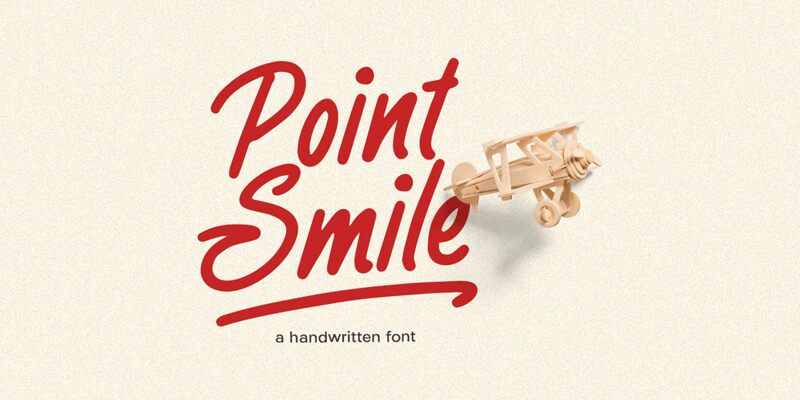
Point Smile, designed by Letterhend Studio, is a delightful handwritten font that exudes a whimsical charm. Its semi-light weight adds a touch of playfulness to any project. This versatile font is perfect for creating eye-catching logos, greeting cards, invitations, and children's book covers. With its friendly and approachable style, Point Smile is also well-suited for social media graphics, blog headers, and fun branding materials. Let this font bring a cheerful vibe to your projects and leave everyone with a smile on their face.